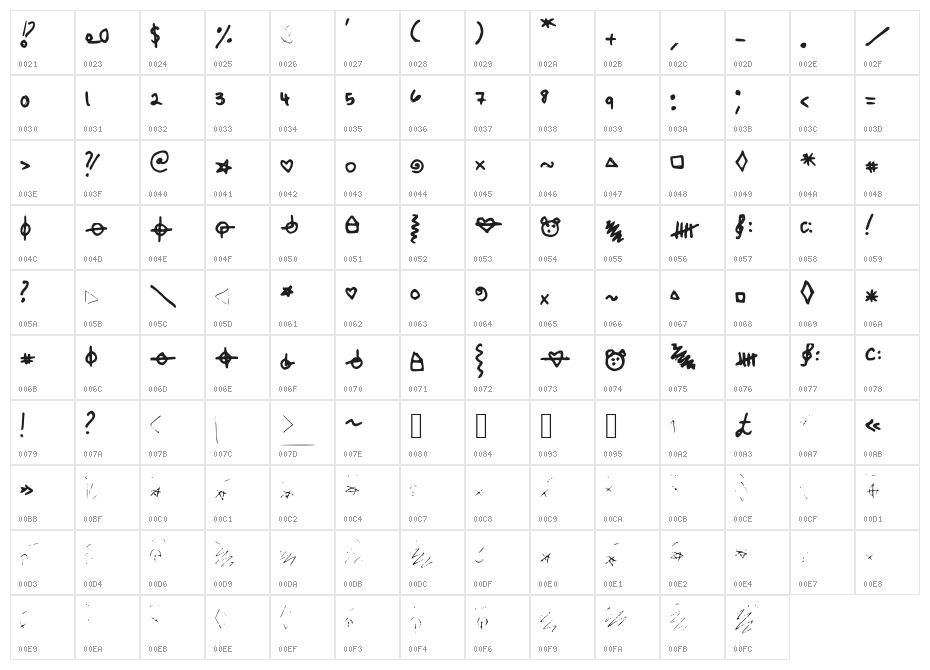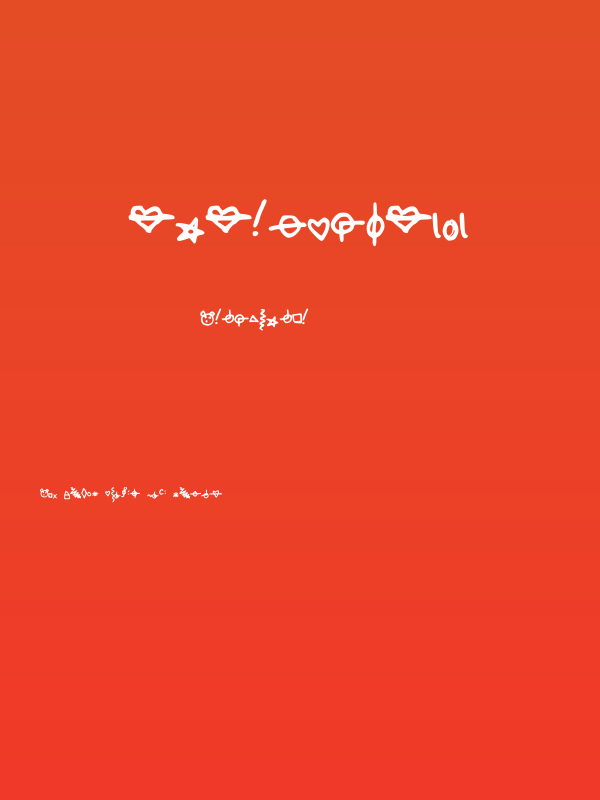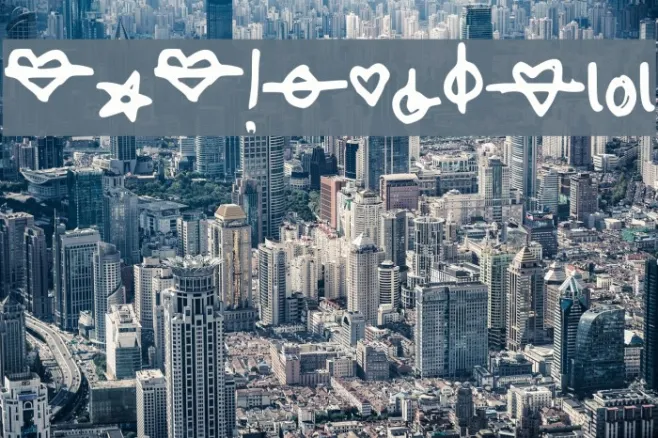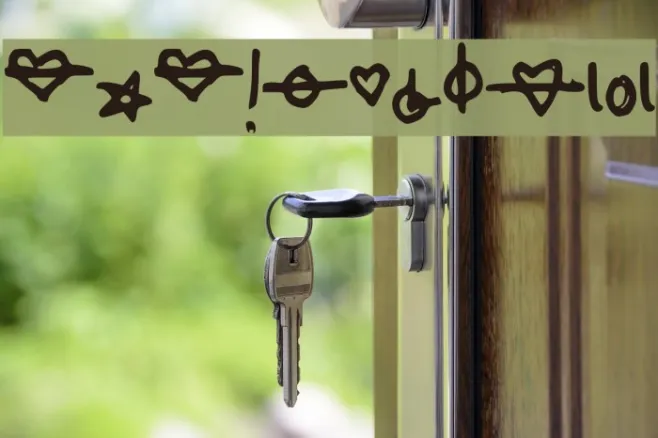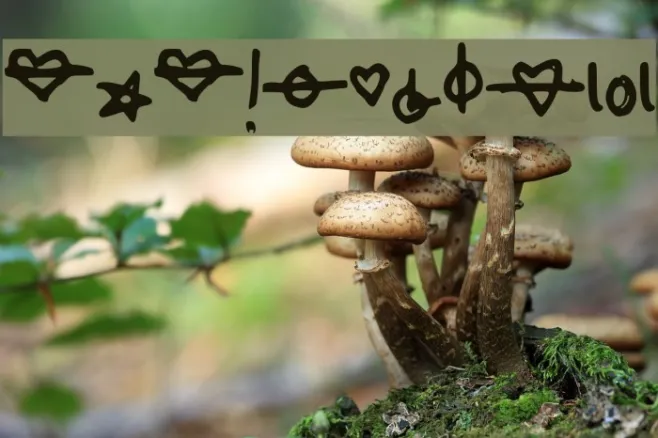
SASymbols101 Font
SASymbols101 Description
This collection of symbols features a playful and whimsical style, characterized by bold, hand-drawn lines and a variety of unique shapes. The symbols include stars, hearts, spirals, zigzags, triangles, squares, diamonds, and various abstract forms. Each symbol is distinct, with a slightly irregular and organic appearance, suggesting a hand-crafted aesthetic. The bold strokes and varied shapes make these symbols stand out, offering a creative and artistic feel. This set is ideal for projects that require a touch of creativity and individuality, such as children's books, playful designs, or artistic branding. The symbols are versatile and can be used to add a unique flair to any visual project.
| Overall Style | Whimsical, Artistic |
| Use Case | Decorative elements, Illustrations, Creative projects |
| Proposed Projects | Children's books, artistic branding, playful design projects, creative illustrations. |